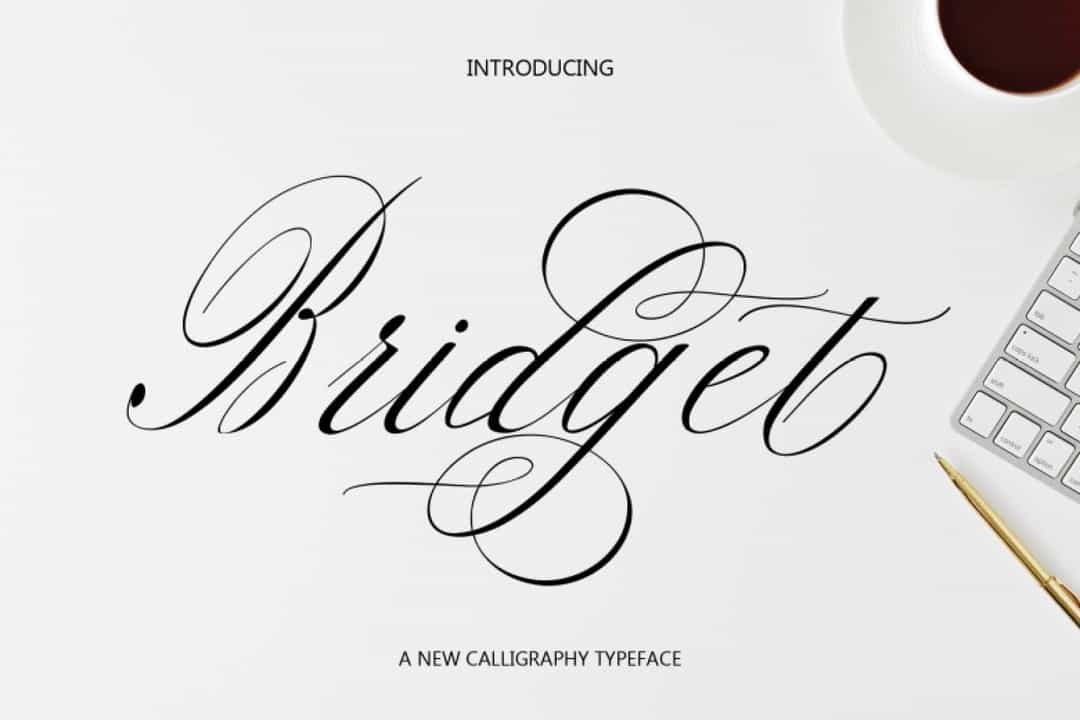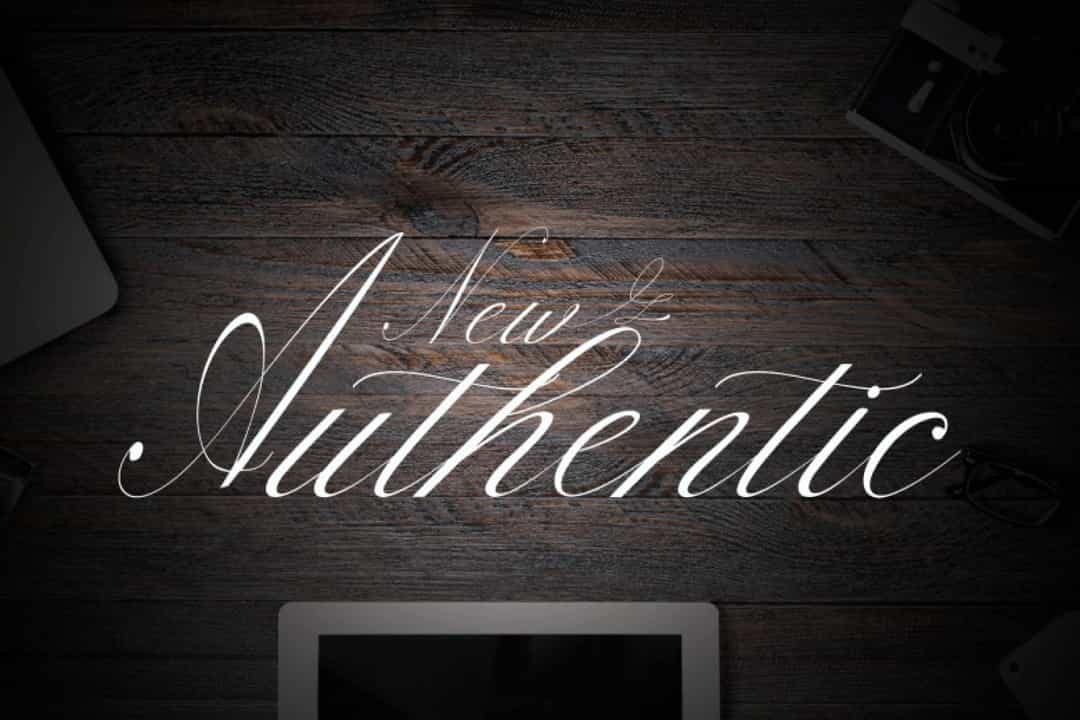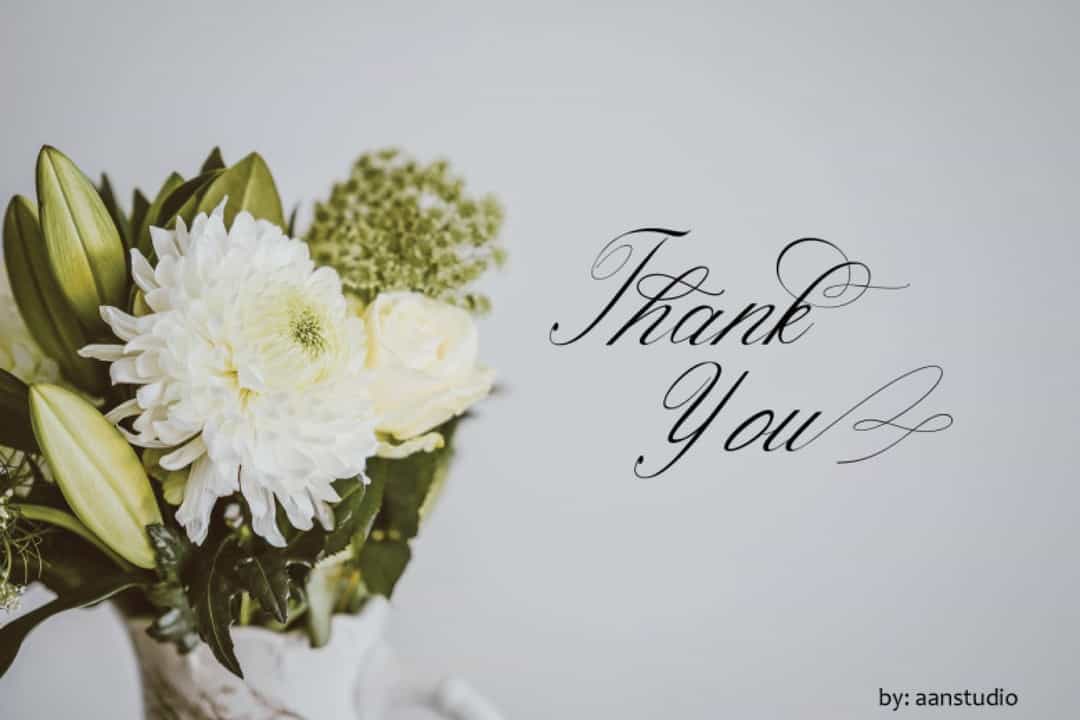
Bridget Font is an elegant, delicate, and flowing script typeface. Featuring well balanced characters, Bridget is versatile enough to suit various styles. Add it to your most imaginative ideas and watch as they come to life!